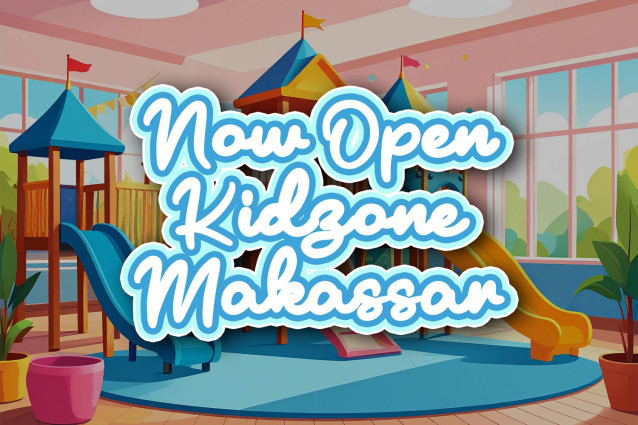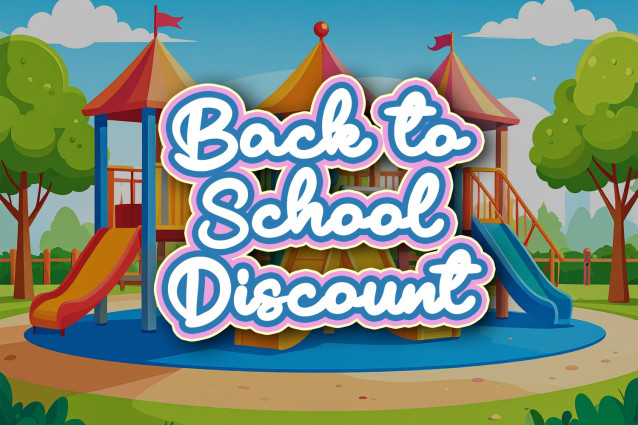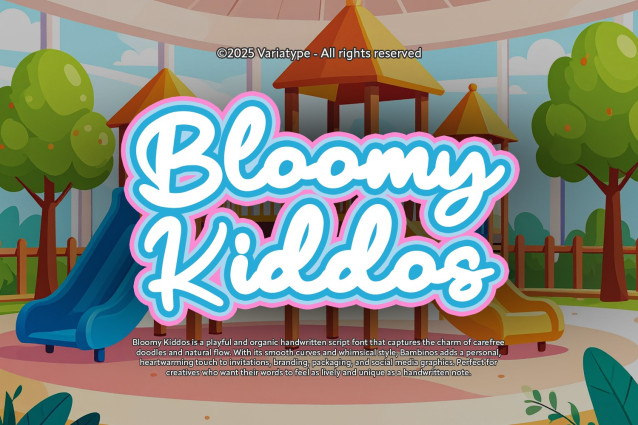
Bloomy Kiddos Font
Bloomy Kiddos is a playful and organic handwritten script font that captures the charm of carefree doodles and natural flow. With its smooth curves and whimsical style, Bambinos adds a personal, heartwarming touch to invitations, branding, packaging, and social media graphics. Perfect for creatives who want their words to feel as lively and unique as a handwritten note.